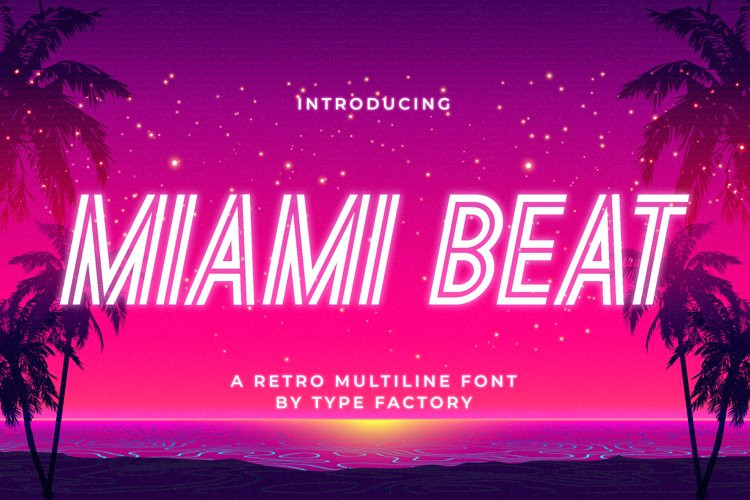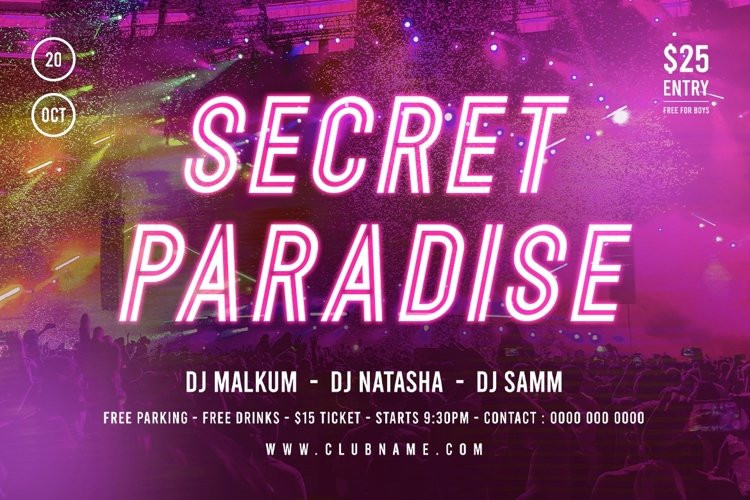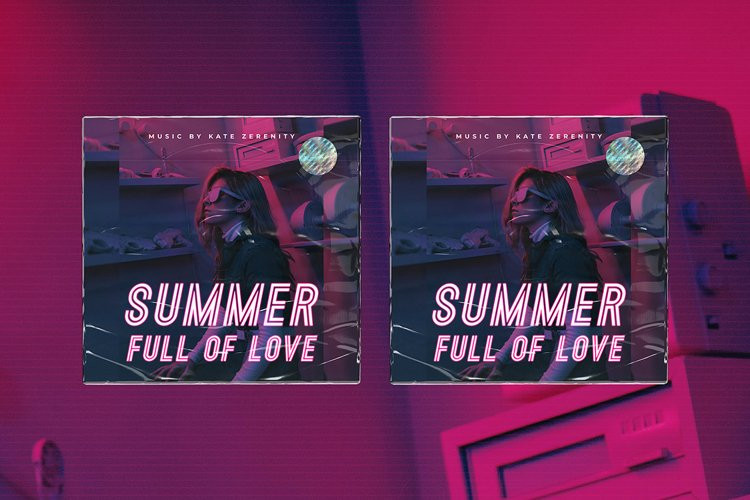
Miami Beat Font
Miami Beat FontMiami Beat is a retro multiline font with summer night theme.
It’s great for your store, branding, quote and title for magazine, film, or product design.